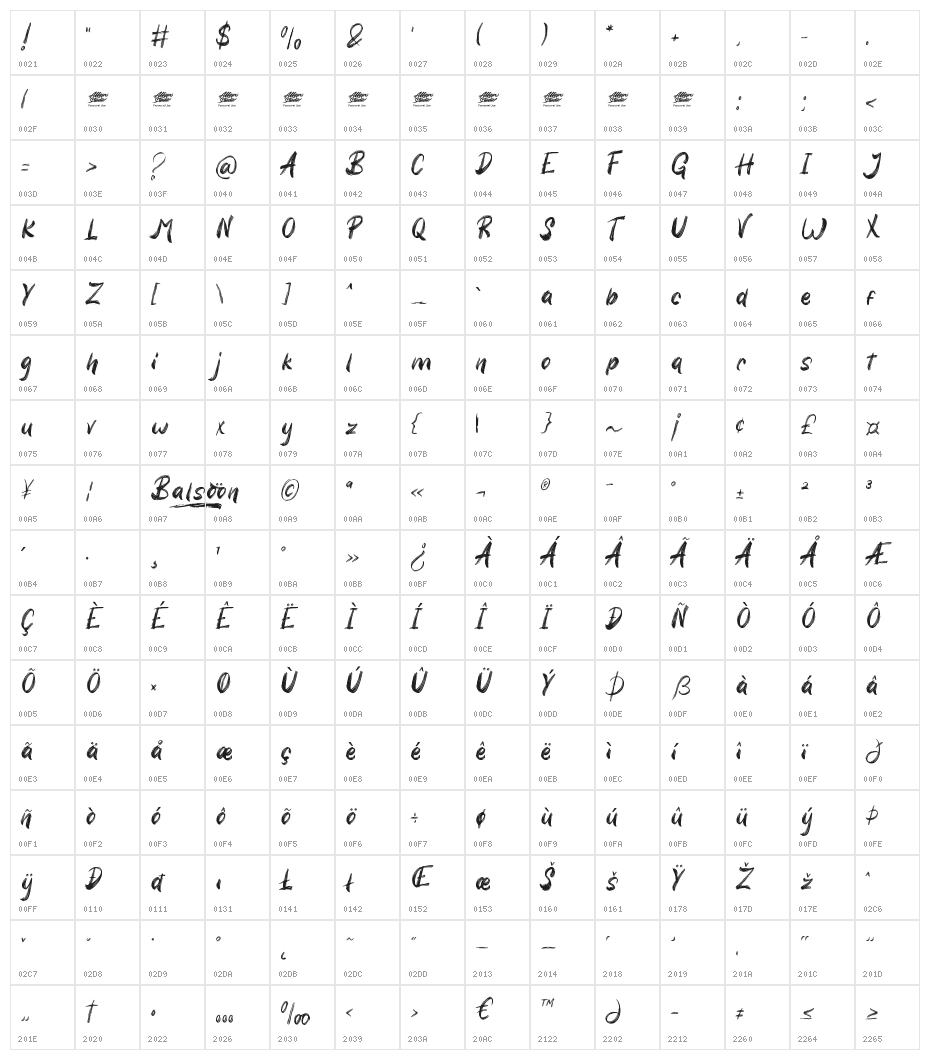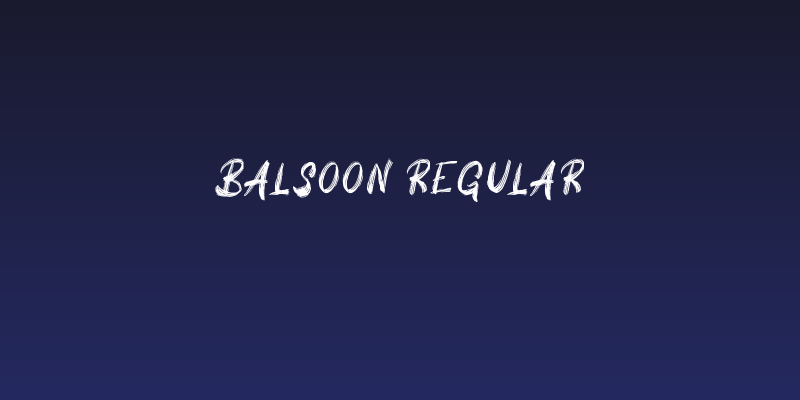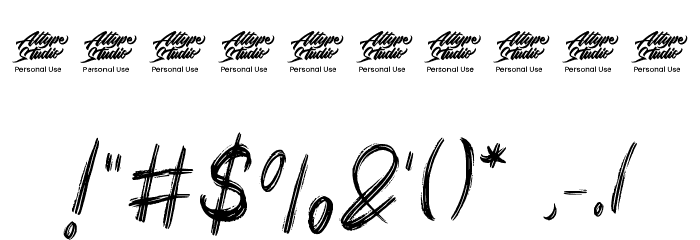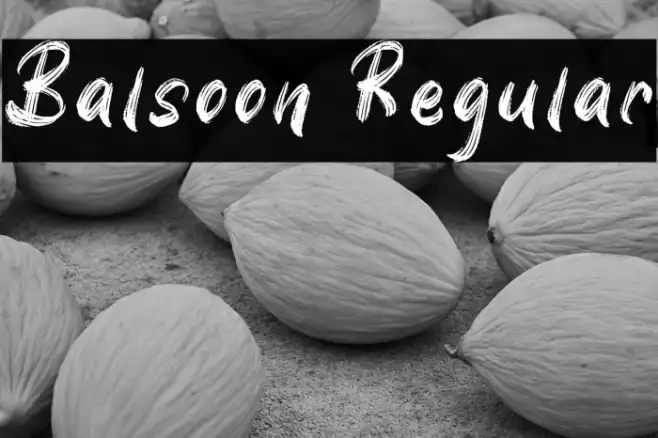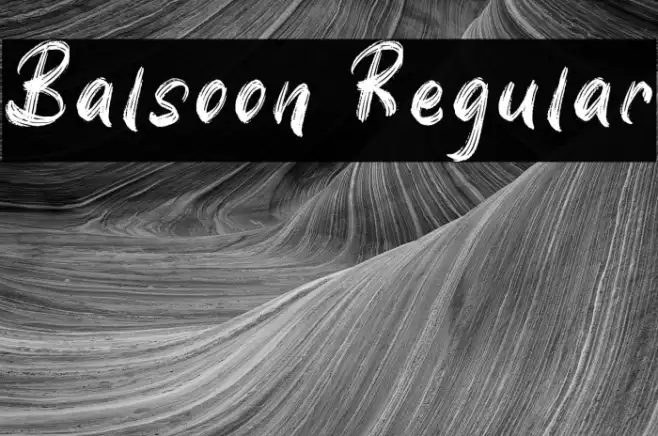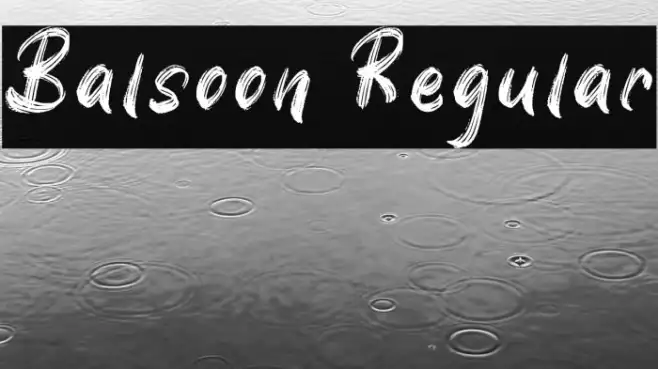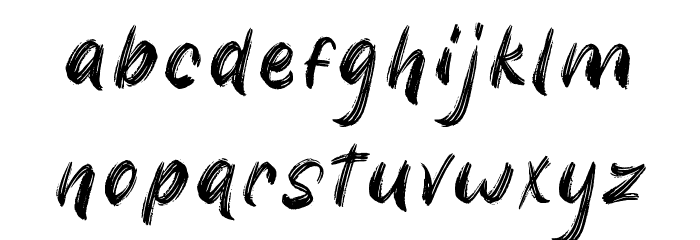
Balsoon Regular Font
This font features a bold, expressive brush style with a dynamic and energetic appearance. The strokes are thick and textured, giving it a hand-painted look that adds a personal touch to any design. The uppercase and lowercase letters are well-balanced, maintaining a consistent flow throughout. The numerals and special characters are crafted with the same attention to detail, ensuring versatility across various applications. Its artistic flair makes it ideal for projects that require a creative and informal vibe.